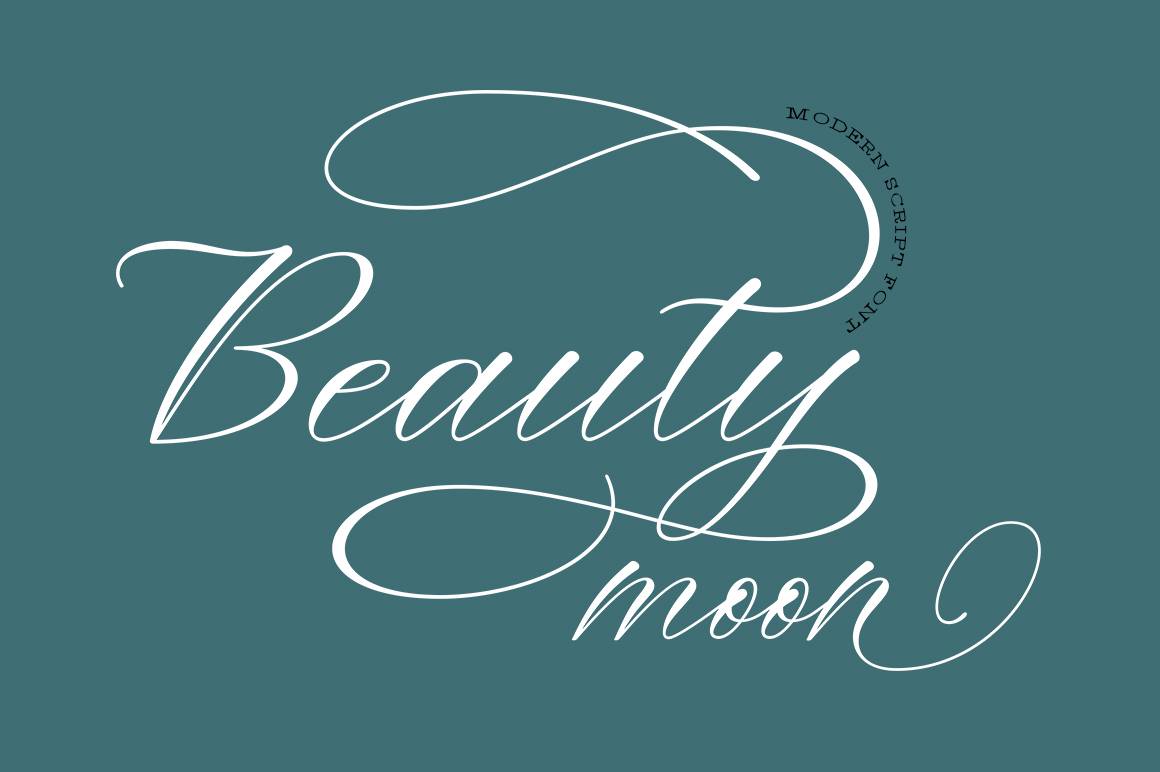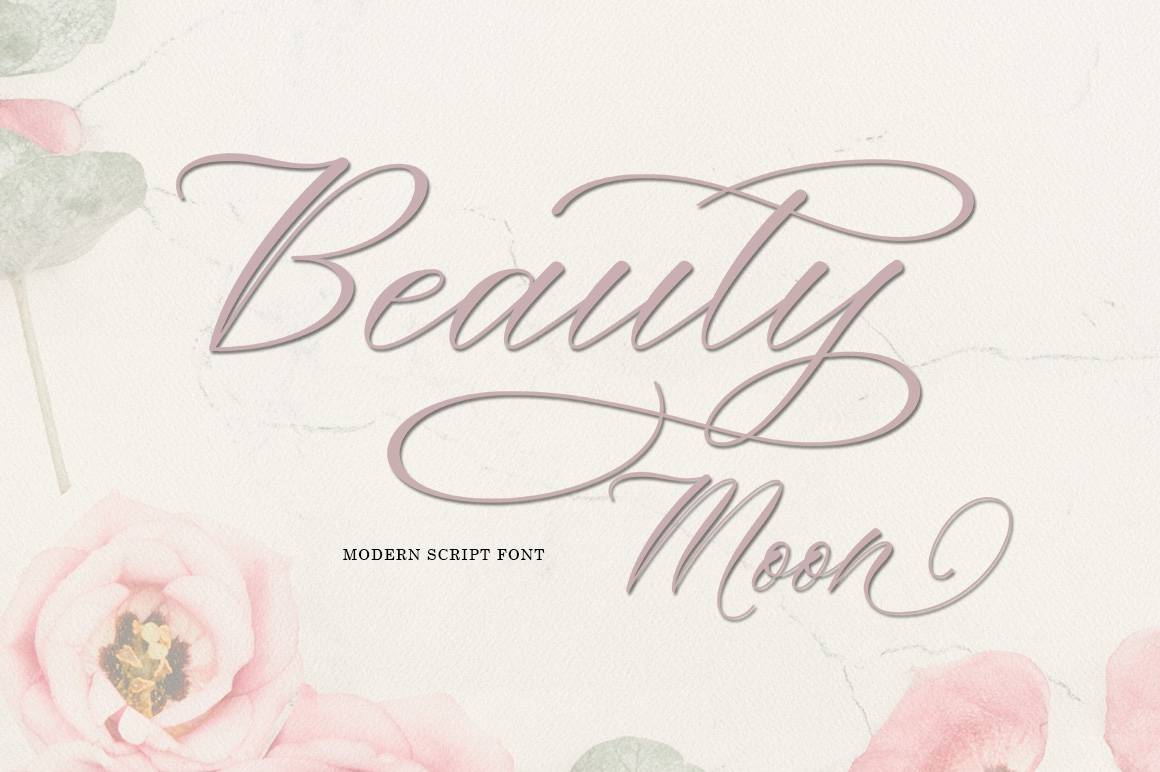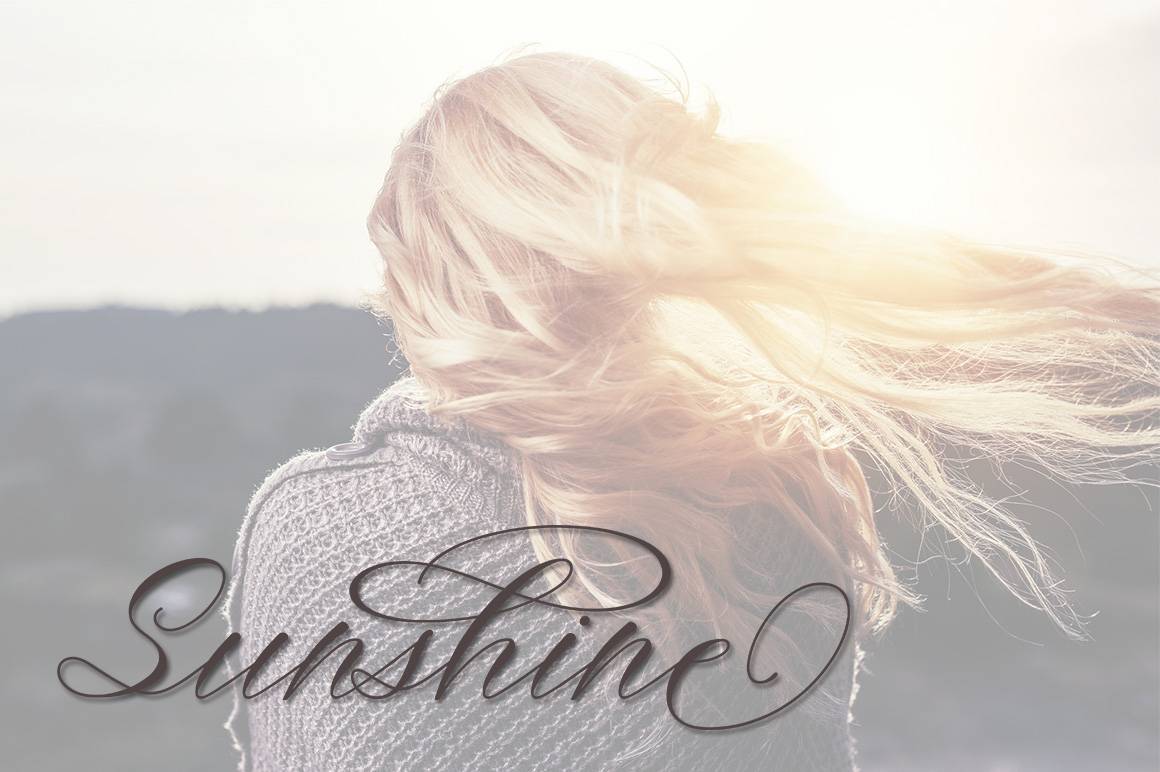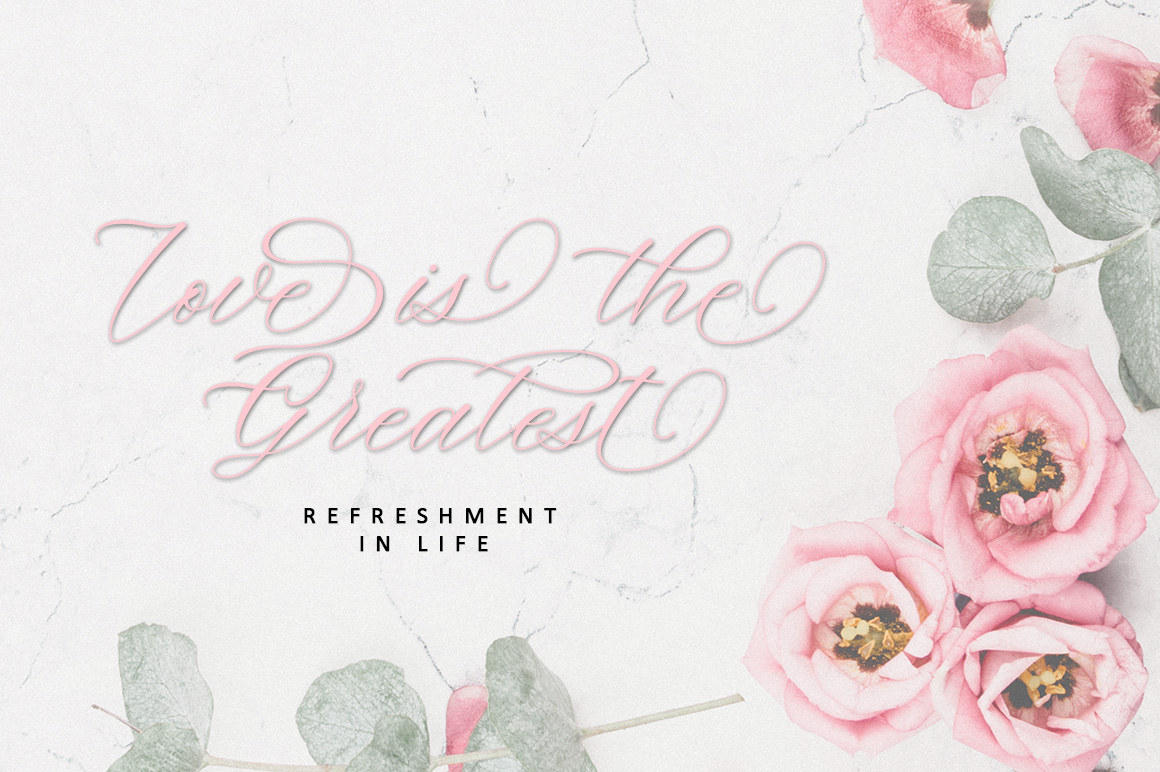
Beauty Moon Script
The Beauty Moon is a modern script font. It has a regular baseline and will give your designs a trendy and feminine style. It’s perfect for wedding invitations, thank you cards, quotes, greeting cards, logos, business cards, and more. Thanks to Jack Kerouac for providing this elegant font with us. If you like it don’t forget to check out the full version.